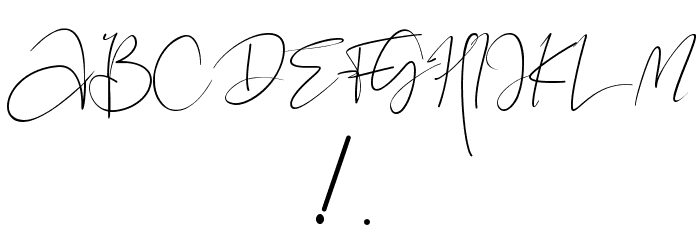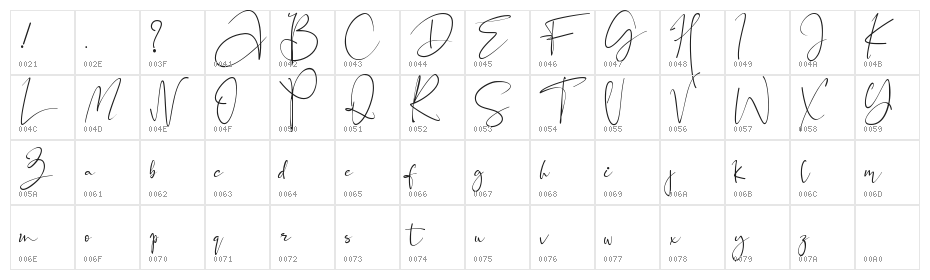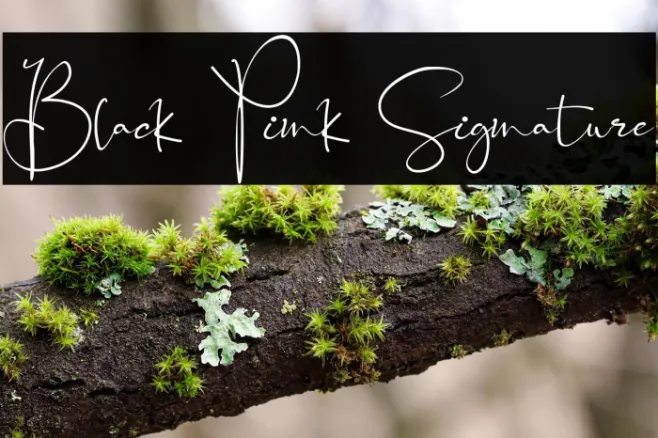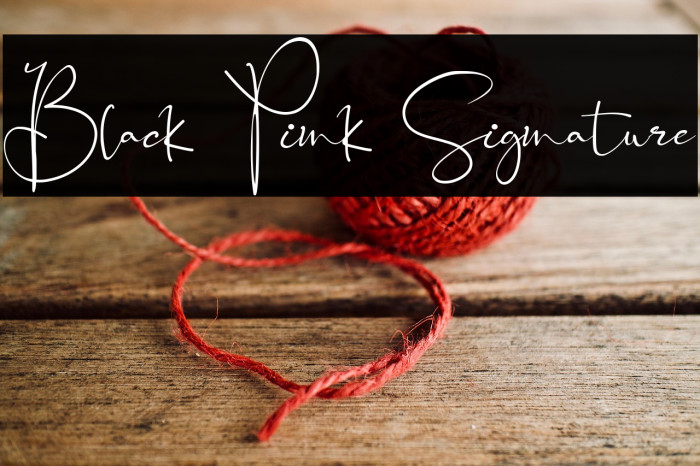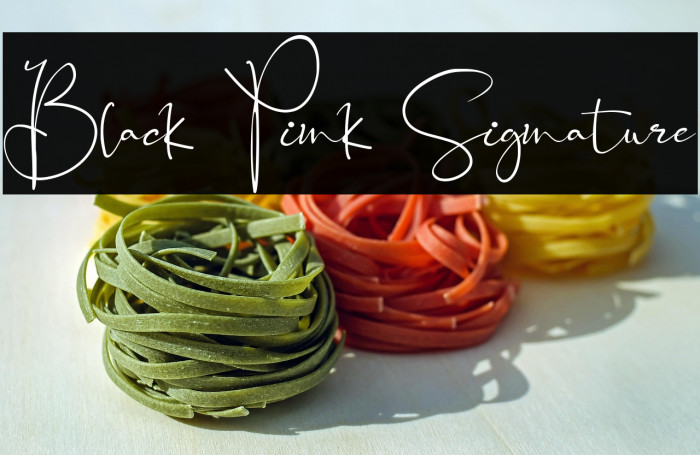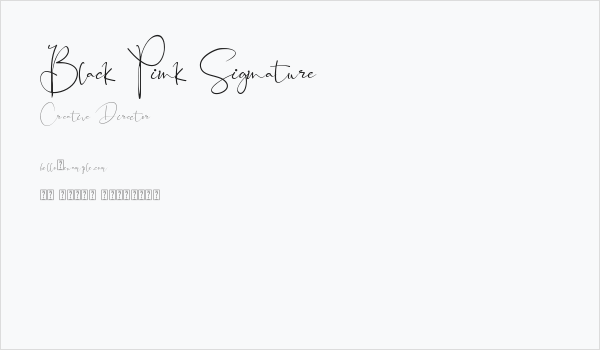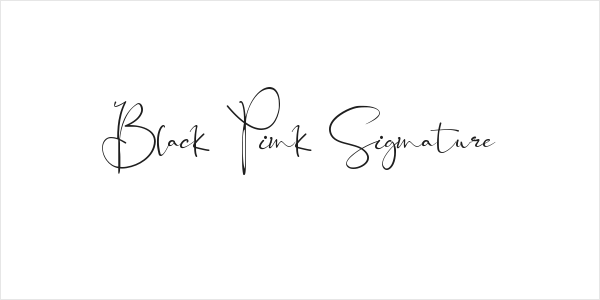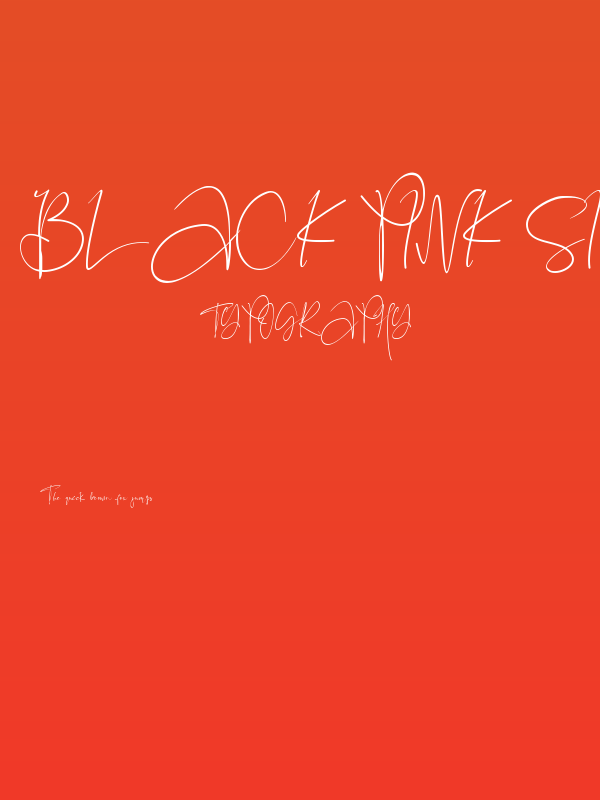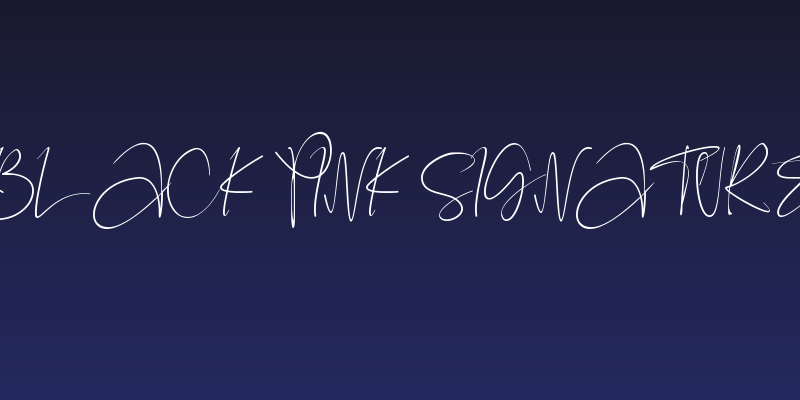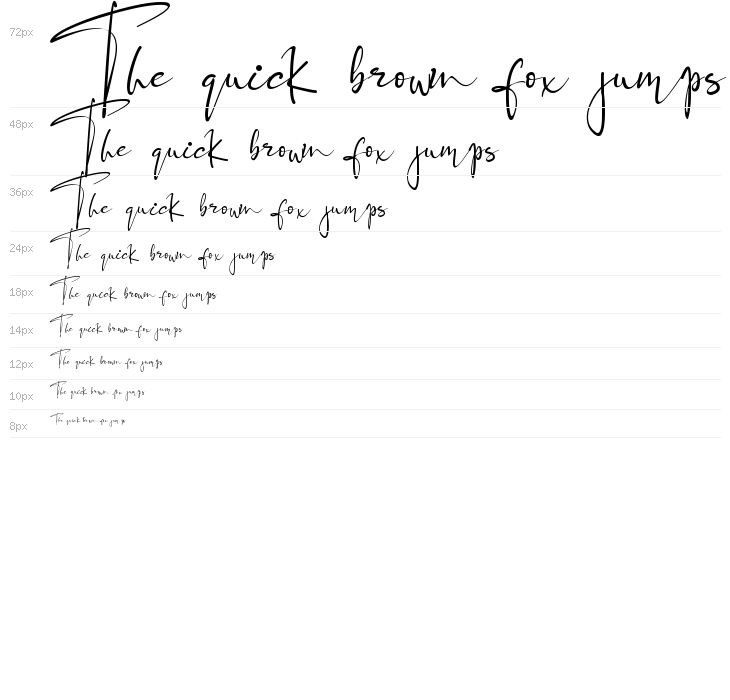
Black Pink Signature Font
Black Pink Signature Description
This font exudes a dynamic and expressive style, characterized by its fluid, cursive strokes that mimic the natural flow of handwriting. The letters are elegantly elongated, with a playful yet sophisticated flair. The uppercase and lowercase letters maintain a consistent style, with the uppercase letters being slightly more elaborate. The font's thin lines and graceful curves give it a delicate appearance, while the occasional loops and swirls add a touch of whimsy. This font is perfect for projects that require a personal, artistic touch, such as invitations, greeting cards, or branding materials.
| Proposed Projects | Ideal for invitations, greeting cards, branding, and artistic projects. |